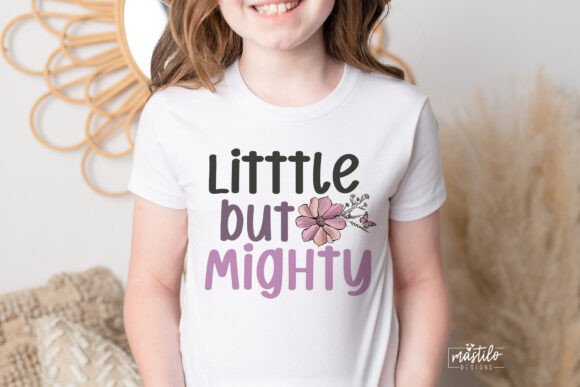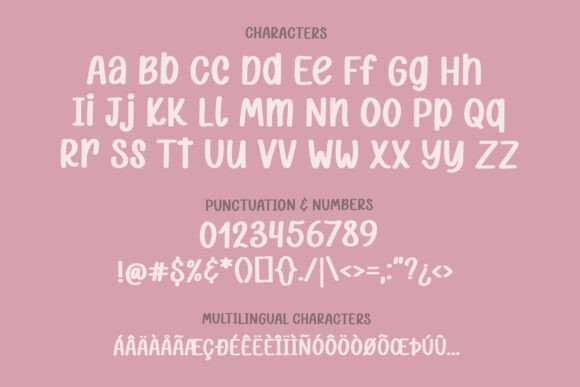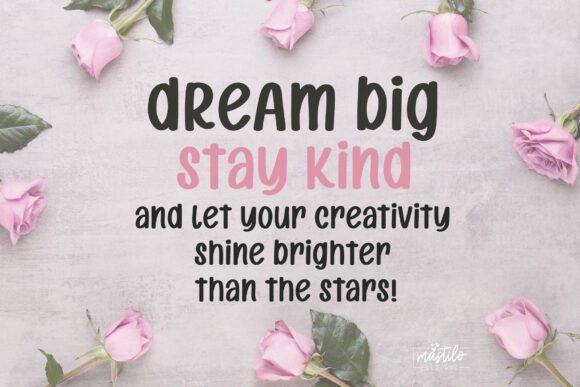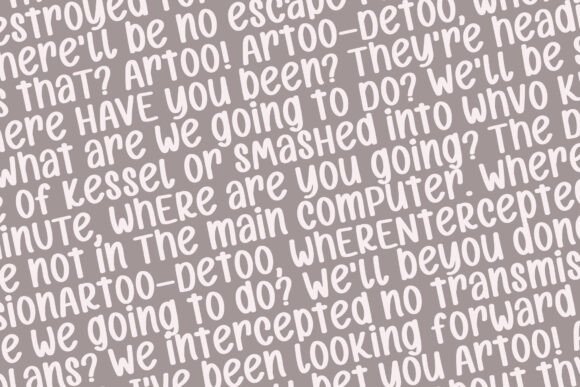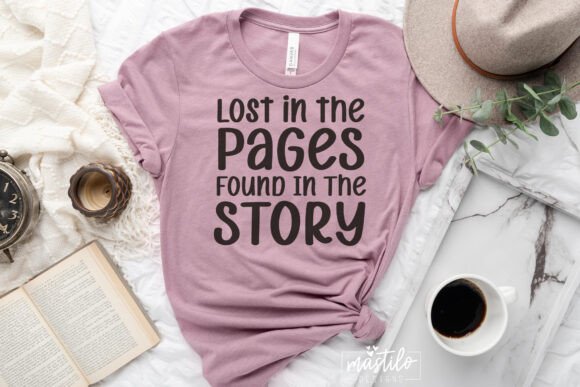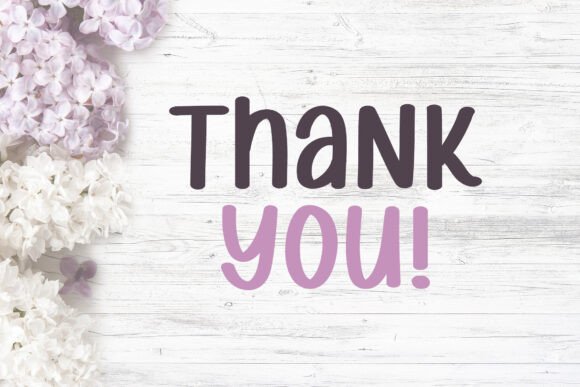
Candy Berry Font: The Sweetest Addition to Your Design Collection
Are you tired of using the same old fonts in your designs? Look no further than Candy Berry, a sweet and friendly handwritten font that’s sure to add a touch of whimsy to your creations. With its natural and unique style, Candy Berry is incredibly versatile and can be used in a wide range of designs, from crafting and DIY projects to digital graphics and marketing materials.
What Makes Candy Berry So Special?
Candy Berry is more than just a font – it’s a way to add personality and charm to your designs. Its handwritten style gives it a personal and approachable feel, making it perfect for brands and designers who want to connect with their audience on a more intimate level. The font’s natural and unique style also makes it incredibly fitting for a wide range of designs, from rustic and vintage-inspired projects to modern and playful ones.
The Possibilities Are Endless with Candy Berry
The best part about Candy Berry is that the only limit is your imagination! This versatile font can be used in a multitude of ways, including:
- Crafting and DIY projects, such as scrapbooking, card making, and paper crafting
- Digital graphics, including social media graphics, blog posts, and website headers
- Marketing materials, such as brochures, flyers, and business cards
- Packaging design, including labels, tags, and product packaging
- Stationery and office supplies, such as journals, stickers, and washi tape
Why Designers and Crafters Love Candy Berry
Designers and crafters alike love Candy Berry for its unique and playful style. Here are just a few reasons why:
- Easy to read: Despite its playful style, Candy Berry is incredibly easy to read, making it perfect for body text and other applications where legibility is key
- Highly versatile: As mentioned earlier, Candy Berry can be used in a wide range of designs and applications, making it a great addition to any design collection
- Unique and eye-catching: Candy Berry’s natural and unique style makes it stand out from more traditional fonts, adding a touch of personality and charm to any design
How to Use Candy Berry in Your Designs
Using Candy Berry in your designs is easy! Here are a few tips to get you started:
- Pair it with other fonts: Candy Berry pairs well with a variety of other fonts, including sans-serif fonts, script fonts, and serif fonts
- Experiment with colors: Candy Berry looks great in a variety of colors, from bright and bold to soft and pastel
- Play with textures and patterns: Adding textures and patterns to your design can help bring out the natural and unique style of Candy Berry
In conclusion, Candy Berry is a sweet and friendly handwritten font that’s perfect for designers and crafters who want to add a touch of whimsy to their creations. With its natural and unique style, Candy Berry is incredibly versatile and can be used in a wide range of designs and applications. Whether you’re working on a crafting project, a digital graphic, or a marketing material, Candy Berry is sure to be a great addition to your design collection.